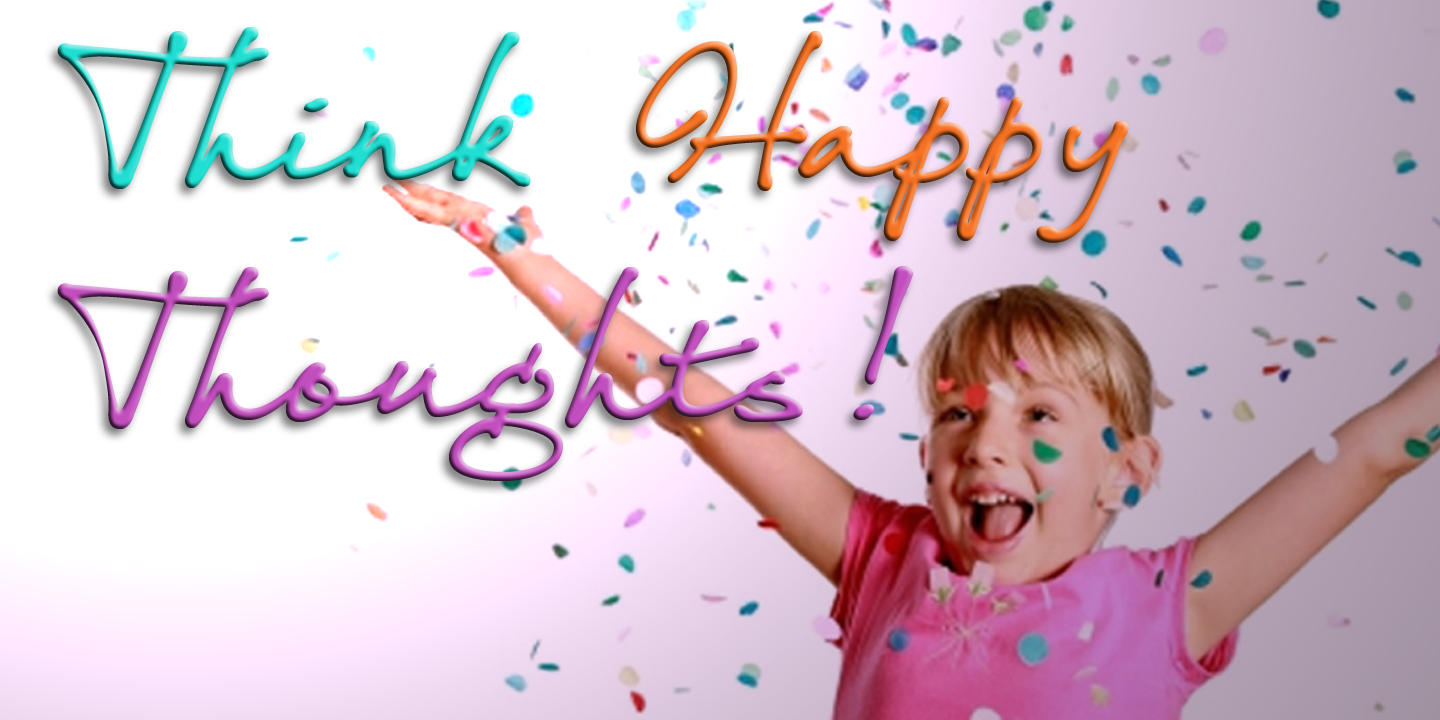
Thought Font is perfect for philosophical journal publications, academic conference materials, intellectual symposium branding, contemplative book cover designs, research institute communications, think tank presentation layouts, scholarly discussion forum signage, and reflective essay collection covers.
Thought Font is exciting because it embodies the pure essence of intellectual contemplation with its thoughtfully balanced letterforms that seem to pause and breathe with the rhythm of deep reflection and philosophical inquiry. The typeface captures the meditative quality of scholarly thinking and the elegant simplicity that emerges when complex ideas are distilled into clear understanding, creating an immediate sense of intellectual depth and contemplative wisdom that resonates with those who value careful reasoning and thoughtful discourse.
Thought Font family includes Light, Regular, Medium, Bold, and Contemplative variants, complemented by minimalist philosophical ornaments and reflective decorative elements, providing designers with cerebral typography tools for creating communications that celebrate the life of the mind and the transformative power of sustained intellectual engagement.
Whether you're developing an academic institution's brand identity, designing intellectual content materials, or creating scholarly publication layouts, Thought Font Free Download offers unmatched intellectual authenticity and contemplative appeal. This reflective typeface perfectly balances scholarly authority with accessible clarity, ensuring your communications resonate with thinking audiences who appreciate both rigorous analysis and elegant presentation of complex ideas. The font's thoughtful character variations and meditative rhythm make it particularly effective for organizations that emphasize critical thinking, philosophical inquiry, and the kind of intellectual excellence that advances human understanding through careful study and reasoned discourse. Academic professionals consistently choose Thought Font when projects require typography that communicates wisdom, clarity, and the kind of intellectual seriousness that transforms abstract concepts into meaningful insights, making it indispensable for scholarly branding, academic publishing, and any application where contemplative typography can honor the magnificent tradition of human thought and inspire people to engage deeply with ideas, question assumptions, and contribute to the ongoing conversation that defines civilization's greatest intellectual achievements and continues to expand the boundaries of human knowledge and understanding.